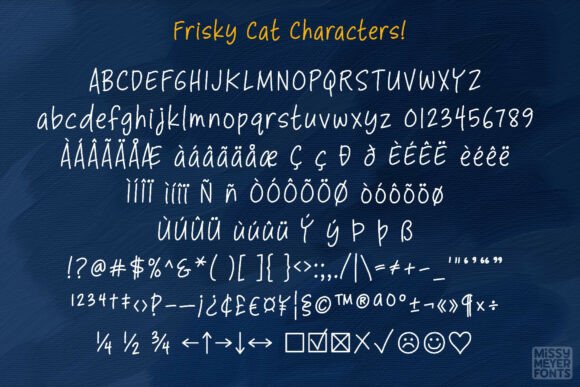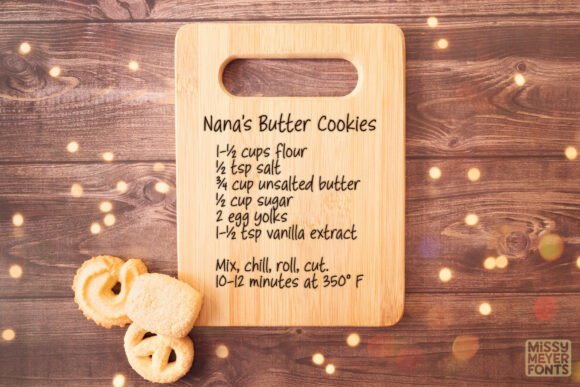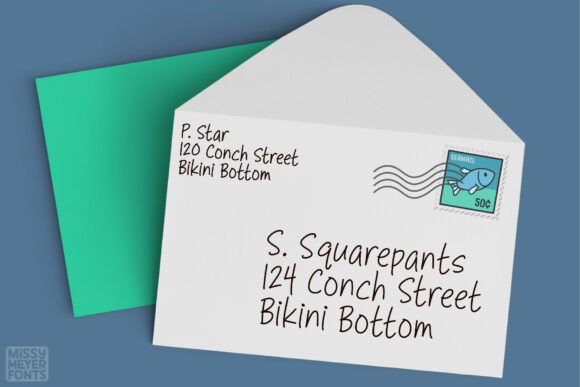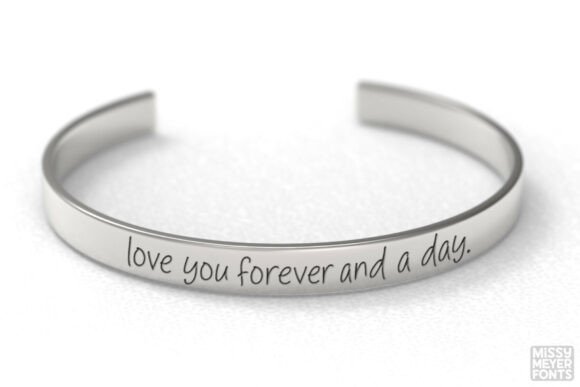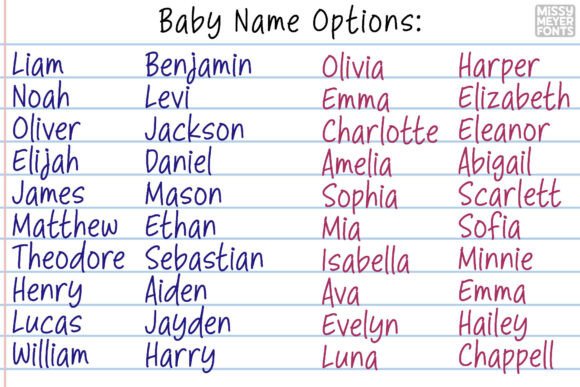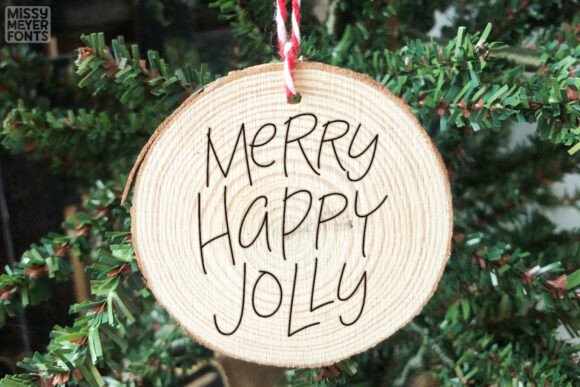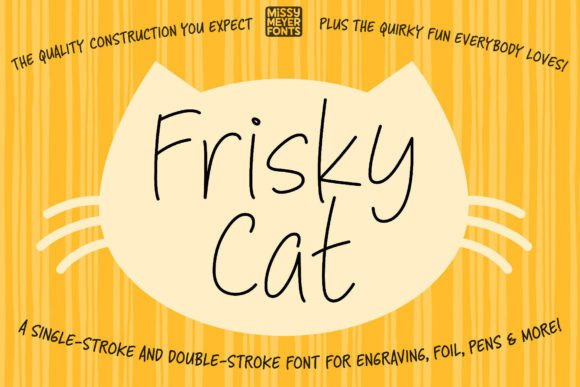
Introducing Frisky Cat Font: The Playful Handwriting Font for Creative Projects
Are you a designer or crafter looking for a unique and playful font to add a personal touch to your projects? Look no further than Frisky Cat, a charming single-line handwriting font that’s perfect for a wide range of creative applications. Derived from the popular Intruding Cat outline typeface, Frisky Cat features a tall, narrow structure with hand-drawn character that’s sure to delight.
What Makes Frisky Cat Special?
Unlike traditional print fonts, Frisky Cat is designed specifically for plotter-based and stylus-driven applications. This means it’s ideal for use with sketch pens, foil quills, engraving tools, infusible ink pens, Glowforge scoring, and other devices that render strokes with a single path rather than a filled outline. Whether you’re working on greeting cards, scrapbooks, jewelry engraving, cutting boards, or other projects, Frisky Cat is the perfect choice.
Font Features
So, what can you expect from Frisky Cat? Here are some key features:
- Design Style: Handwritten, tall, narrow, and light-hearted—adds personality and charm to any design
- Format: Includes both single-stroke and double-stroke versions for compatibility across software platforms and devices
Use Cases
Frisky Cat is incredibly versatile, making it perfect for a wide range of creative projects, including:
- Digital crafting
- Laser cutting
- Engraving
- Infusible ink projects
- Pen plotting
Why Designers and Crafters Love Frisky Cat
So, why do designers and crafters love Frisky Cat? Here are just a few reasons:
- Adds personality and charm: Frisky Cat’s playful, hand-drawn style adds a personal touch to any project
- Versatile: Perfect for a wide range of creative applications, from digital crafting to engraving
- Easy to use: Includes both single-stroke and double-stroke versions for compatibility across software platforms and devices
Tips for Using Frisky Cat
Here are a few tips for getting the most out of Frisky Cat:
- Experiment with different sizes: Frisky Cat looks great in a variety of sizes, from small and delicate to large and bold
- Pair with other fonts: Try pairing Frisky Cat with other fonts for a unique and interesting look
- Use for personal projects: Frisky Cat is perfect for personal projects, such as greeting cards and scrapbooks
In conclusion, Frisky Cat is a playful and charming single-line handwriting font that’s perfect for designers and crafters looking to add a personal touch to their projects. With its tall, narrow structure and hand-drawn character, Frisky Cat is sure to delight. Whether you’re working on digital crafting, laser cutting, engraving, or other creative projects, Frisky Cat is the perfect choice.